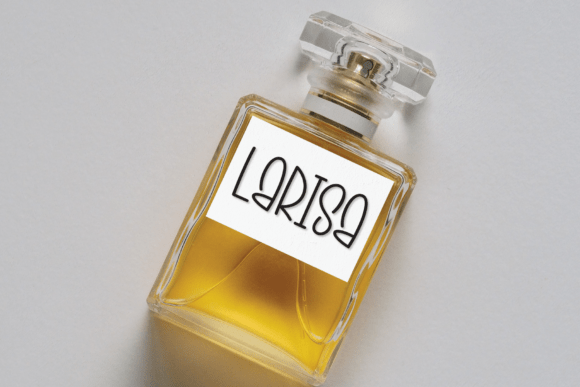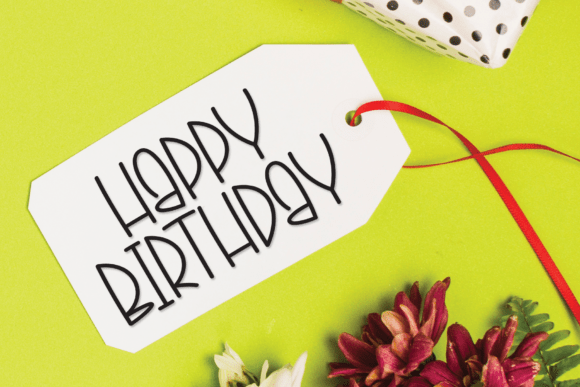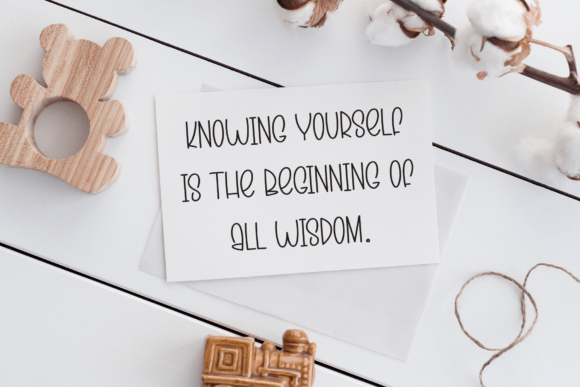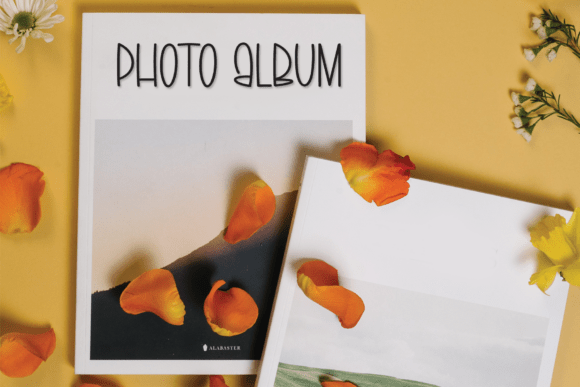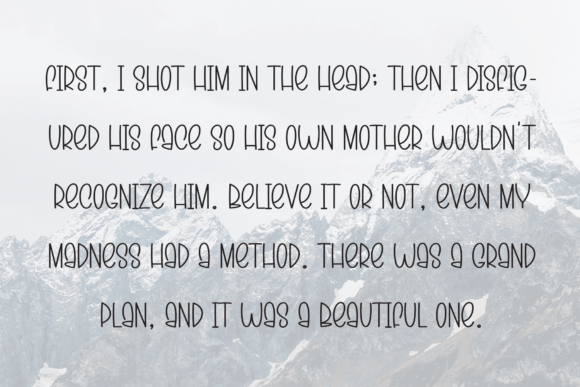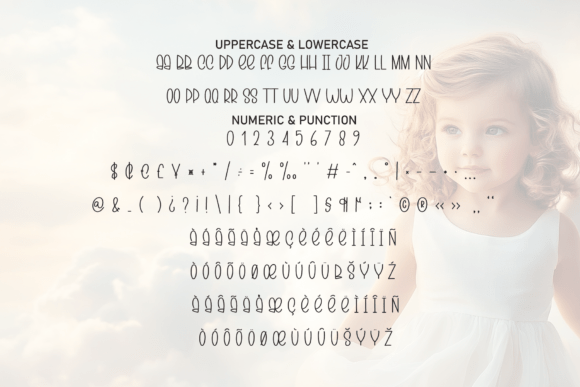
Baby Angel Font: The Perfect Blend of Simplicity and Friendliness
In the world of typography, fonts play a crucial role in conveying the tone and personality of a brand or design. For designers and crafters looking for a font that exudes a sense of warmth and approachability, Baby Angel Font is an excellent choice. This casual and neat display font combines simplicity with a friendly vibe, making it perfect for a wide range of design projects.
What Makes Baby Angel Font Stand Out?
Baby Angel Font features clean lines, balanced letterforms, and subtle rounded edges that capture the essence of modern handwritten typography with a polished finish. The font’s design is characterized by its:
- Clean Lines: The font’s clean lines give it a crisp and modern look, making it perfect for designs that require a touch of sophistication.
- Balanced Letterforms: The balanced letterforms ensure that the font is easy to read, even at smaller sizes, making it versatile for use in various design projects.
- Subtle Rounded Edges: The subtle rounded edges add a touch of warmth and friendliness to the font, making it perfect for designs that require a more approachable tone.
The Benefits of Using Baby Angel Font
Baby Angel Font offers several benefits to designers and crafters, including:
- Versatility: The font’s clean and simple design makes it perfect for use in a wide range of design projects, from branding and advertising to crafting and DIY projects.
- Readability: The font’s balanced letterforms and clean lines ensure that it is easy to read, even at smaller sizes.
- Customizability: The font’s simple design makes it easy to customize, allowing designers to experiment with different colors, textures, and effects.
How to Use Baby Angel Font in Your Designs
Baby Angel Font can be used in a variety of design projects, including:
- Branding and Advertising: Use Baby Angel Font to create a friendly and approachable brand identity that resonates with your target audience.
- Crafting and DIY Projects: Add a personal touch to your crafting and DIY projects with Baby Angel Font, perfect for creating handmade cards, gift tags, and more.
- Digital Design: Use Baby Angel Font in digital designs, such as social media graphics, blog posts, and website headers, to add a touch of warmth and personality.
Tips for Getting the Most Out of Baby Angel Font
To get the most out of Baby Angel Font, consider the following tips:
- Experiment with Colors: Try pairing Baby Angel Font with different colors to create a unique and eye-catching design.
- Add Texture: Add texture to your design by pairing Baby Angel Font with different textures, such as paper or fabric.
- Play with Size: Experiment with different font sizes to create visual interest and hierarchy in your design.
Baby Angel Font is a versatile and friendly display font that is perfect for designers and crafters looking for a font that exudes warmth and approachability. With its clean lines, balanced letterforms, and subtle rounded edges, Baby Angel Font is sure to become a staple in your design toolkit. Whether you’re working on a branding project, crafting a handmade card, or designing a digital graphic, Baby Angel Font is the perfect choice.